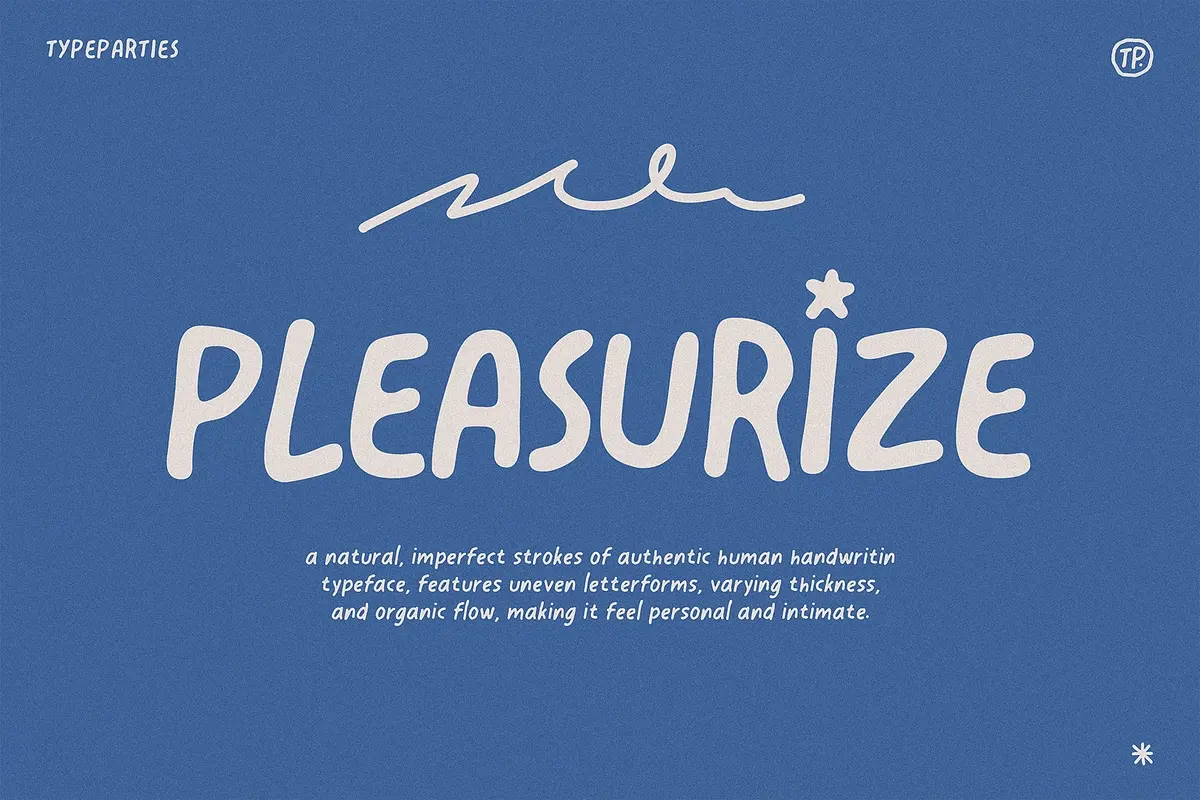
Pleasurize Font Free Download
Pleasurize Font Free Download is a charming handwritten typeface that adds a personal and whimsical touch to your design projects. With its fluid strokes and organic feel, Pleasurize is ideal for invitations, greeting cards, logos, and any creative work that benefits from a handcrafted aesthetic.
Designed by Typeparties, Pleasurize offers a unique blend of casual elegance and readability, making it suitable for both print and digital mediums. Its distinctive character shapes bring warmth and personality to your typography, ensuring your designs stand out with authenticity.